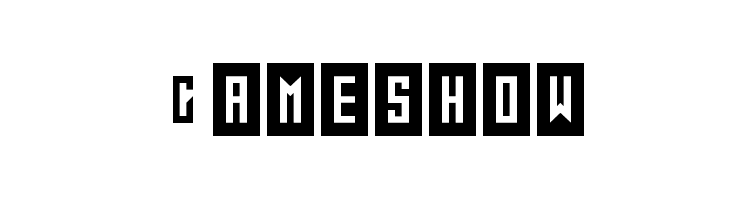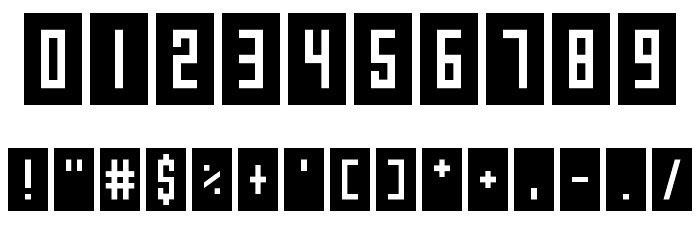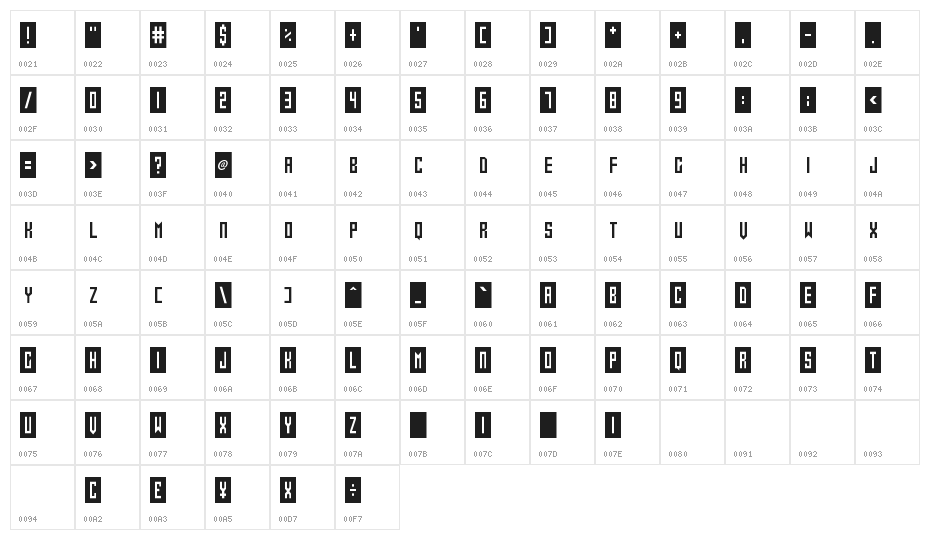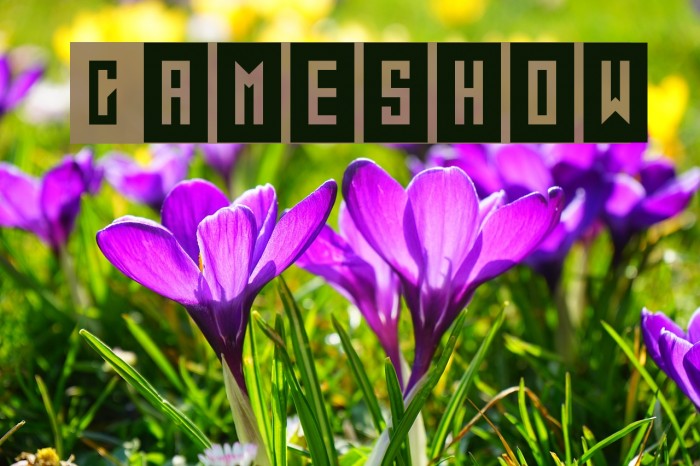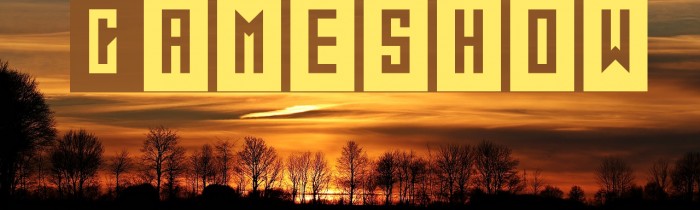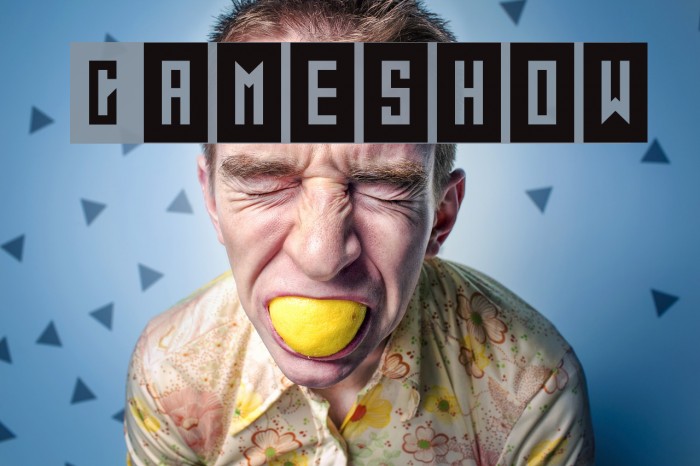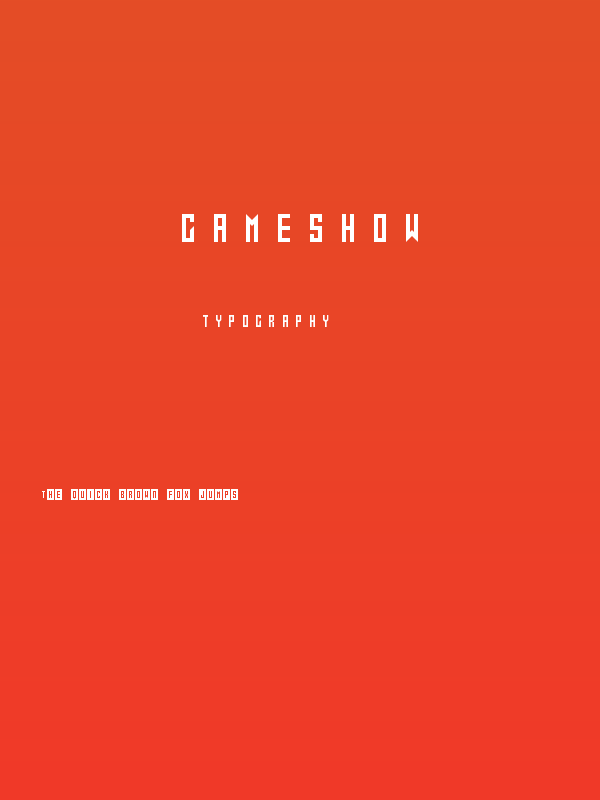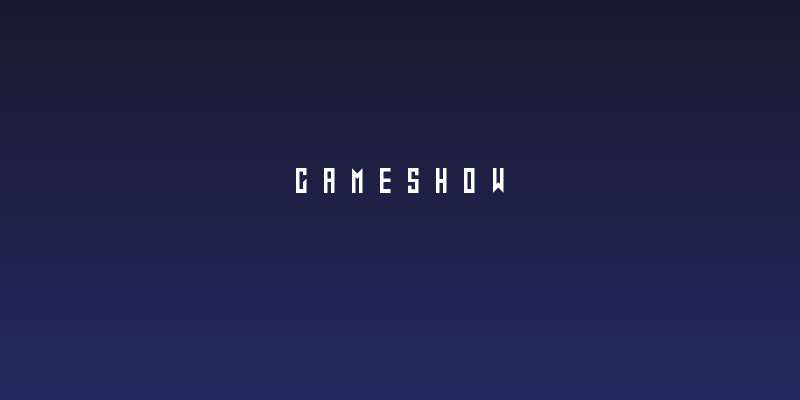
Gameshow Font
This font features a bold, geometric design with a strong emphasis on angular shapes and sharp edges. The uppercase letters are distinct with a blocky appearance, while the lowercase letters maintain a consistent style that complements the uppercase. Numbers and special characters follow the same geometric pattern, ensuring uniformity across all characters. The font's design is reminiscent of digital displays or retro video game aesthetics, making it ideal for projects that require a modern yet nostalgic feel. Its boldness ensures high visibility, making it suitable for attention-grabbing headlines or titles.
| Overall Style | Modern, Retro |
| Proposed Projects | Ideal for video game titles, tech-themed posters, digital displays, and retro-inspired branding. |